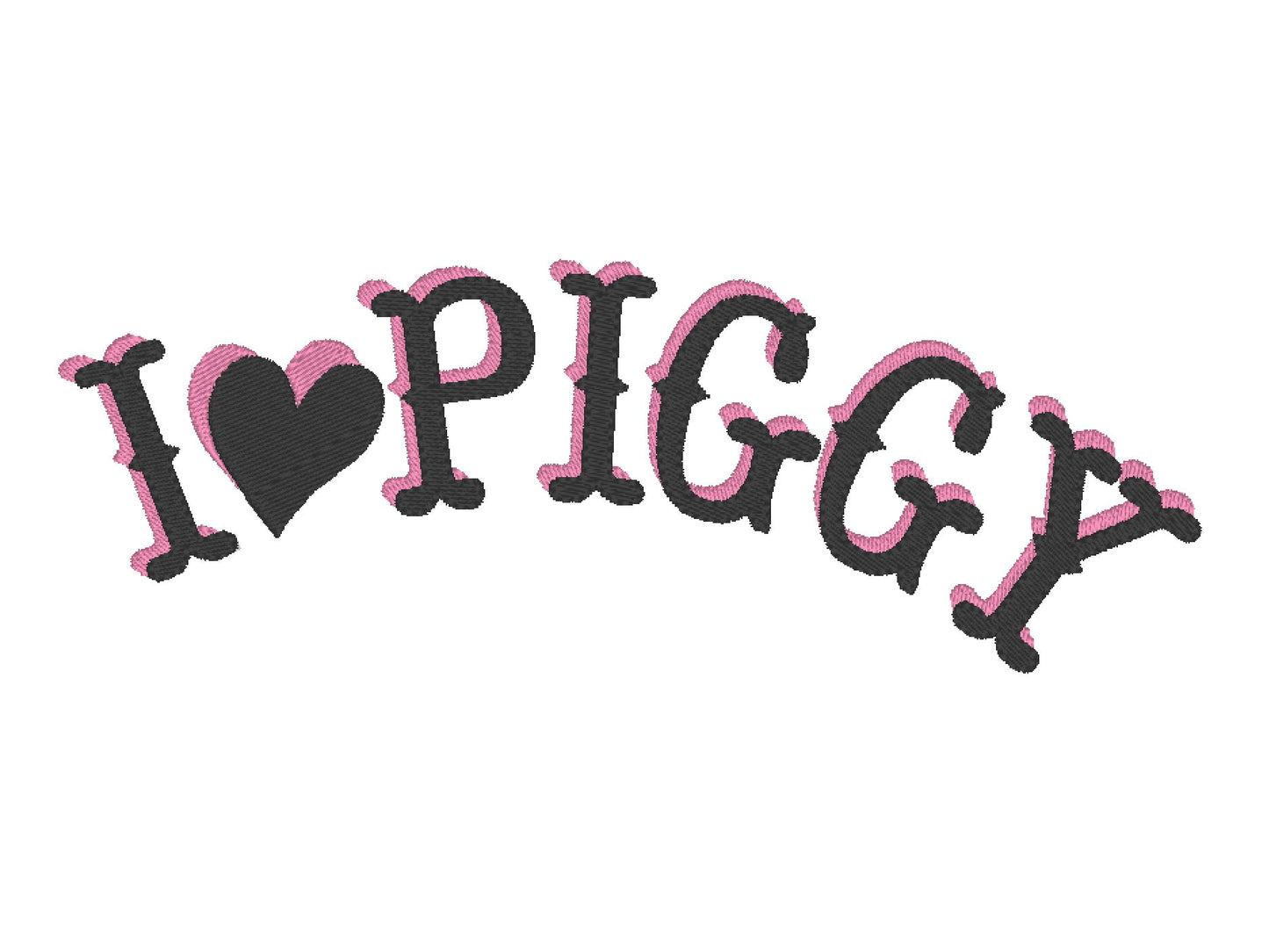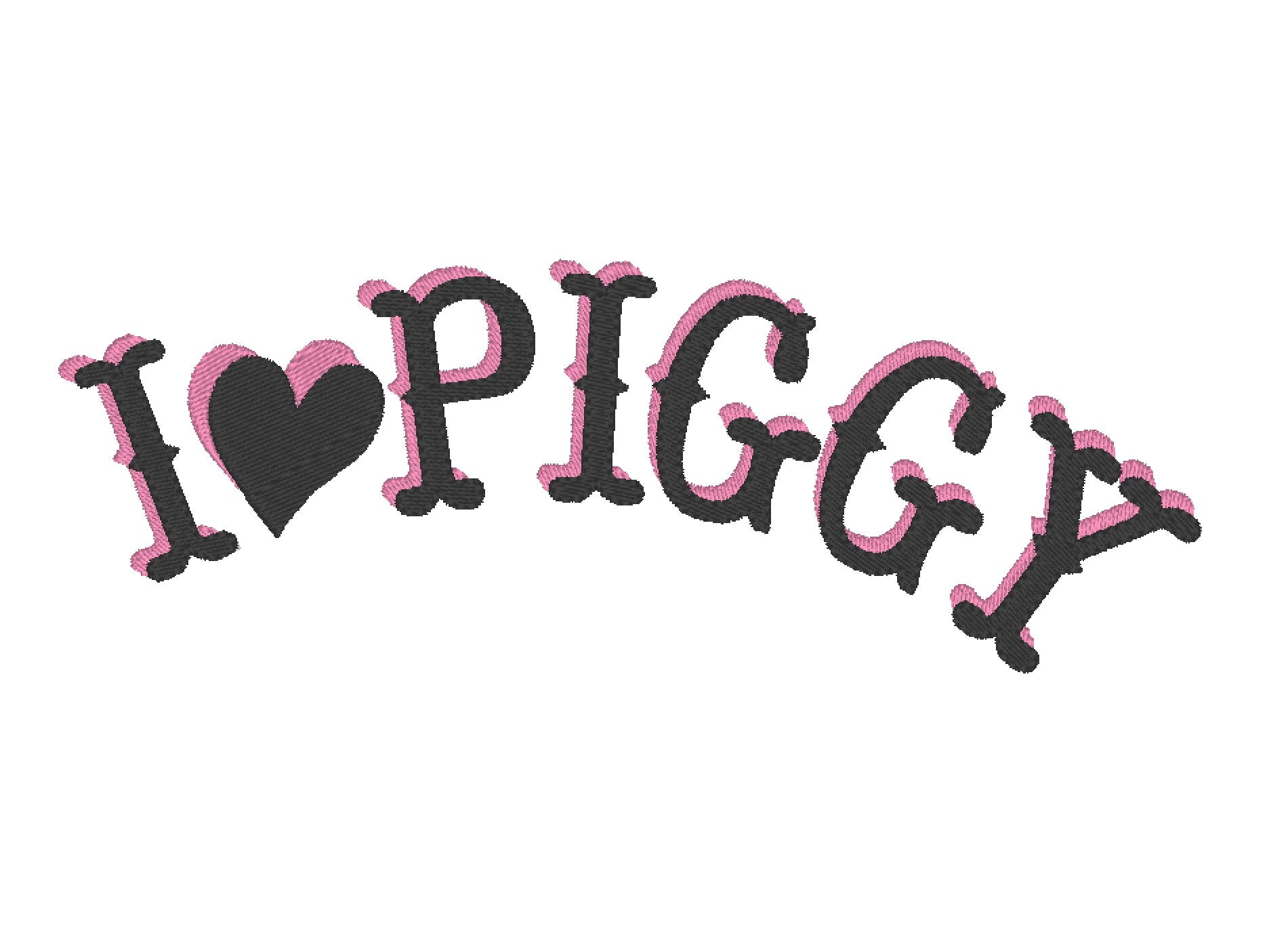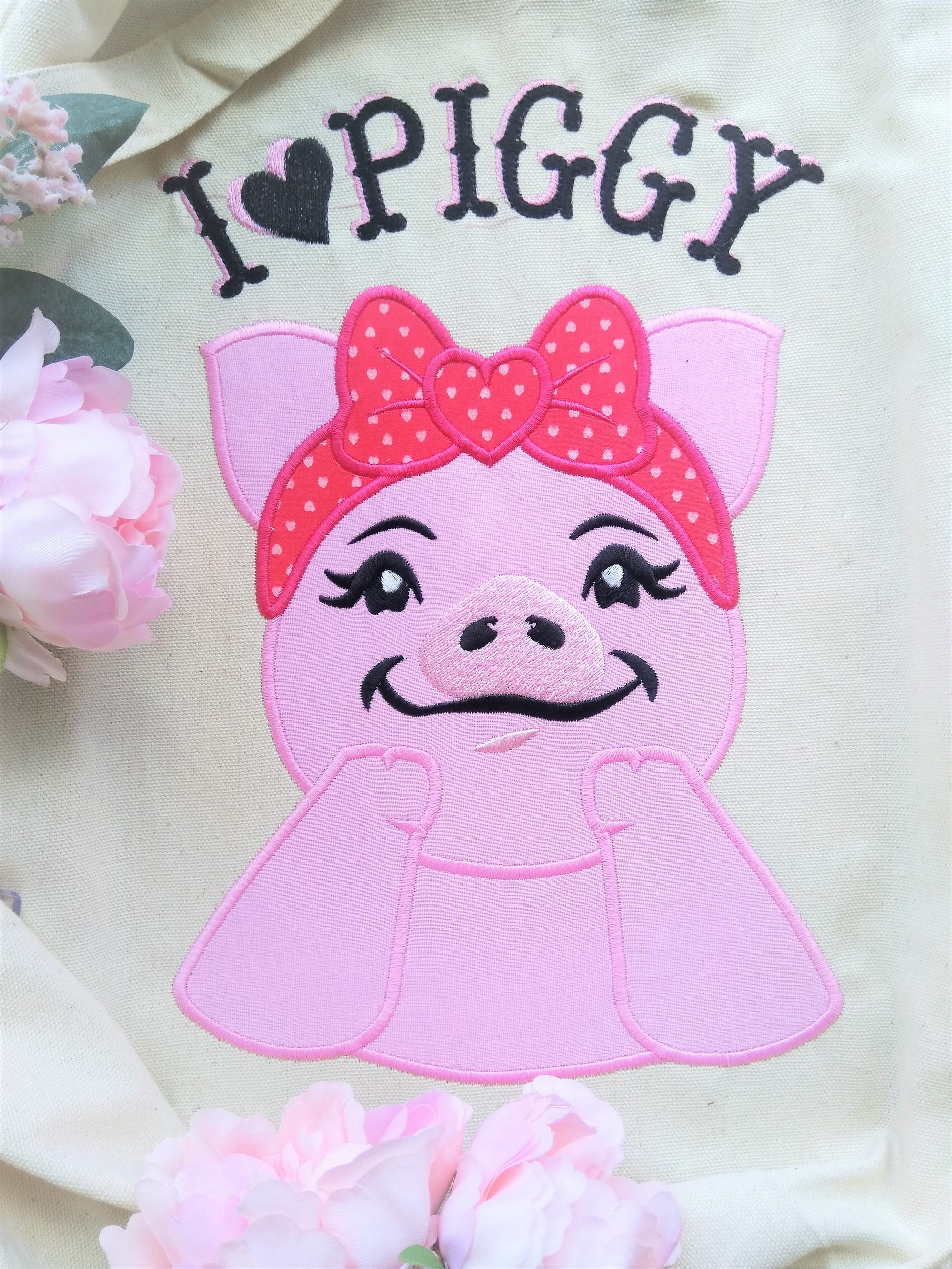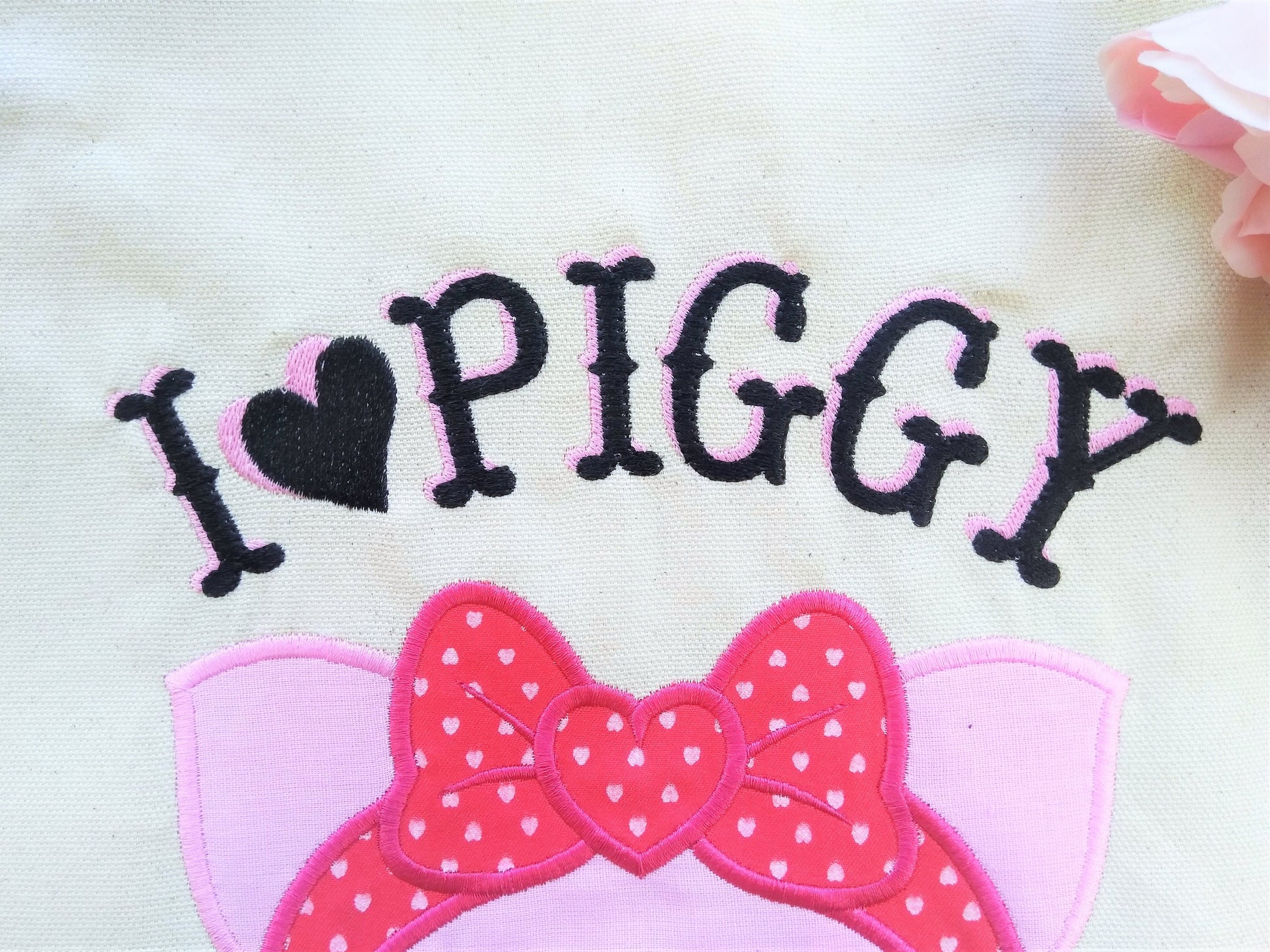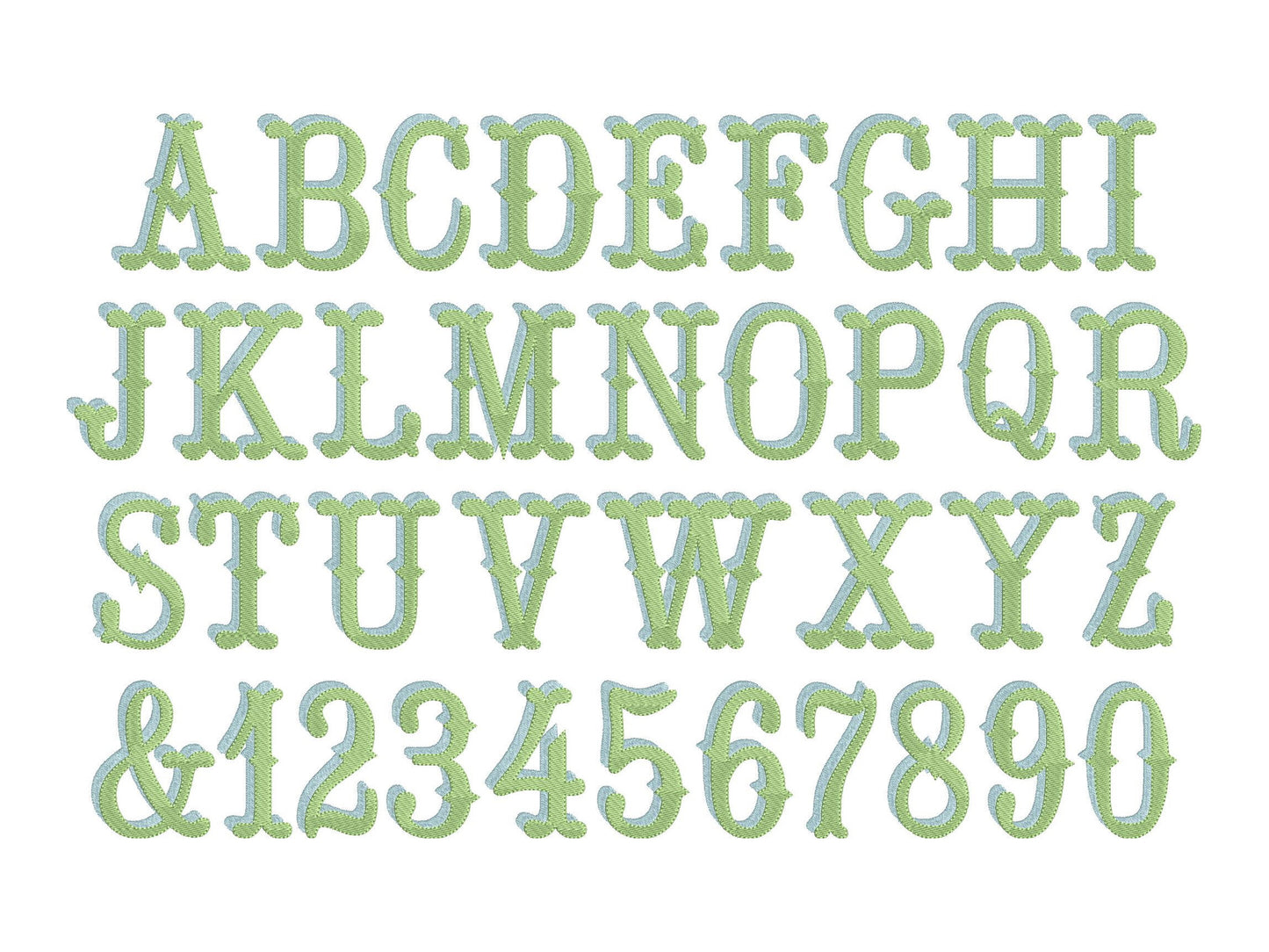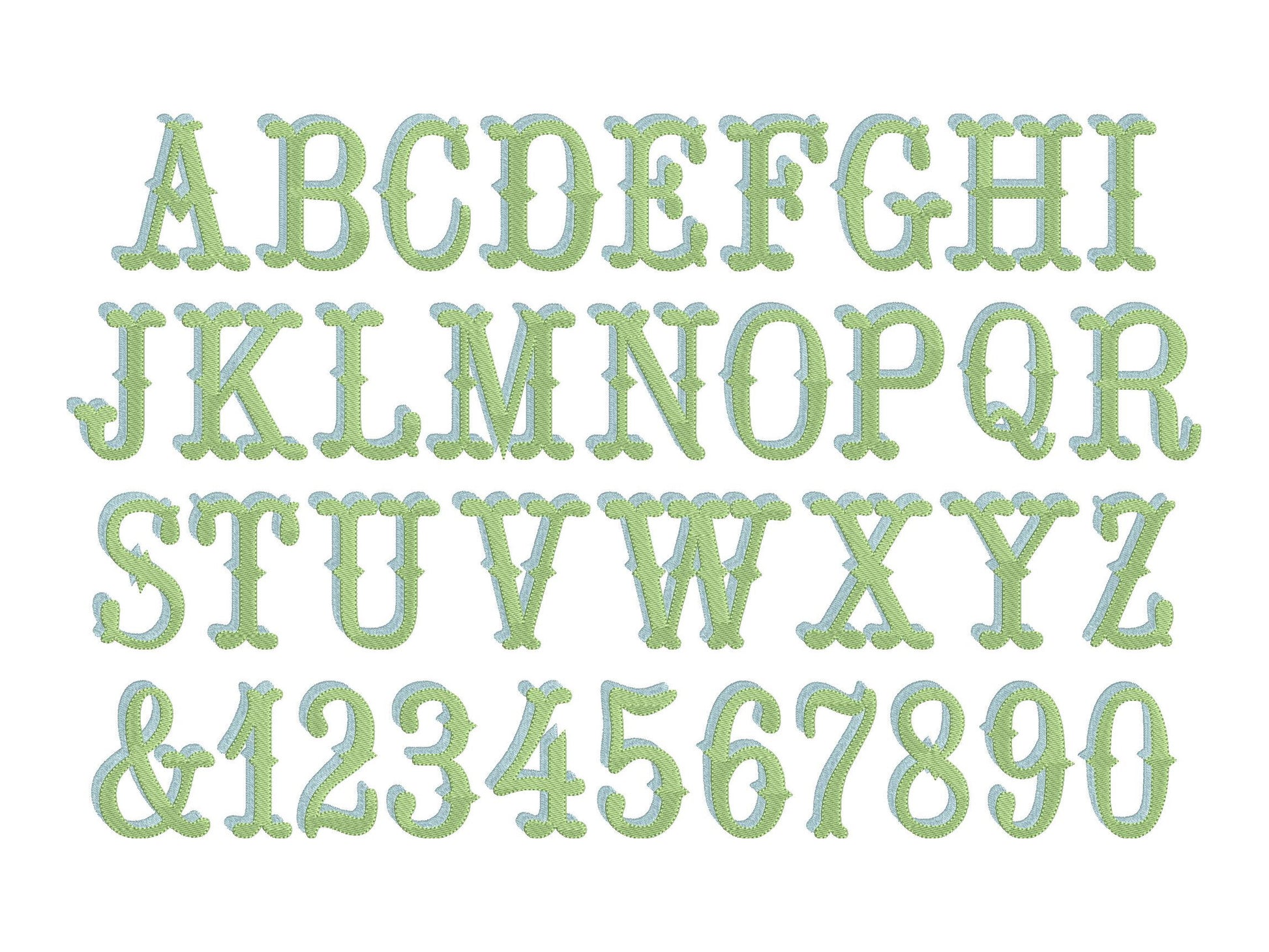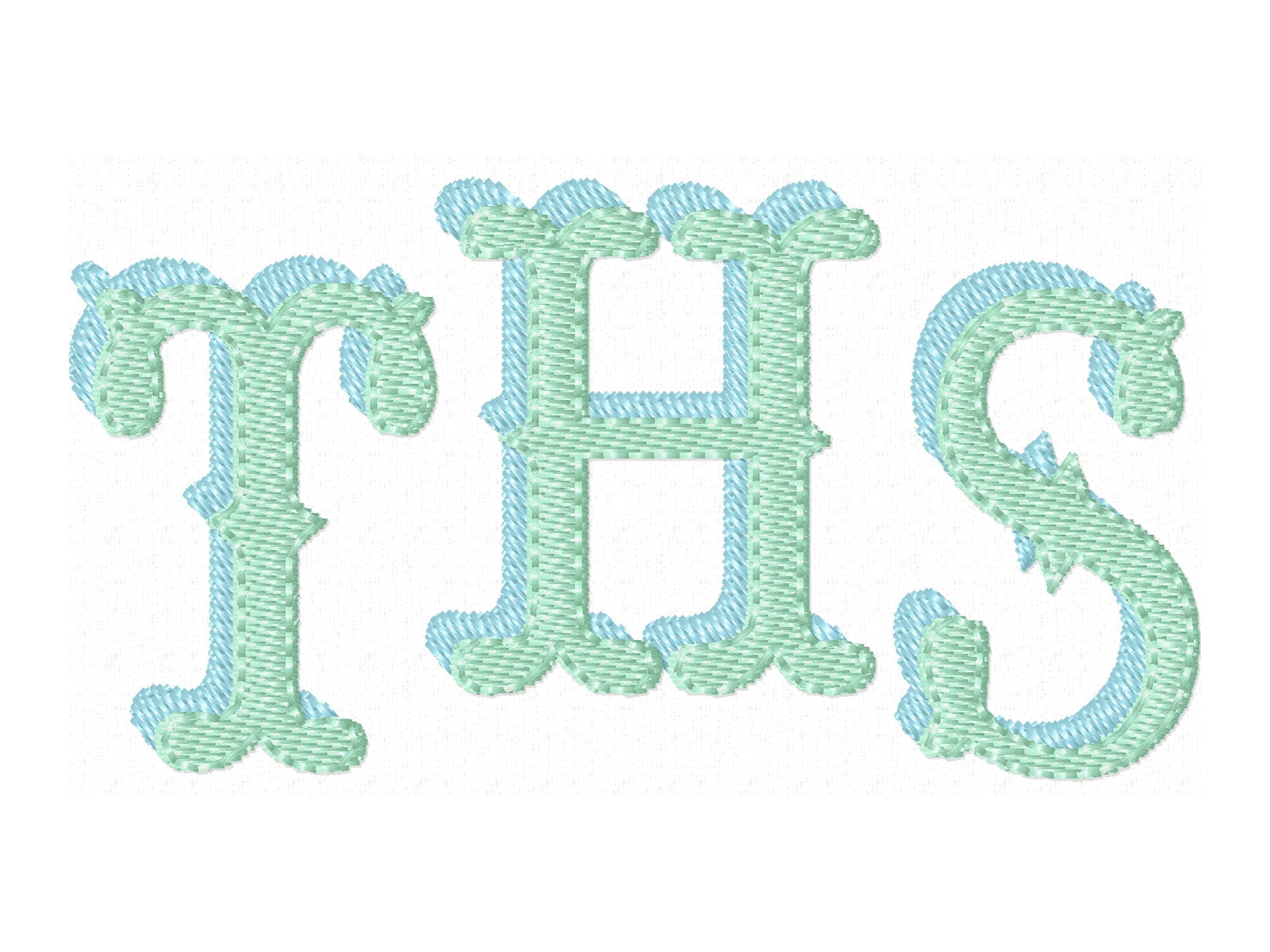
Fishtail Shadow Monogram Font
Included: Uppercase A-Z, Numbers 0-9, Punctuation
A western saloon-style monogram font with a shadow and fishtail ends. Great for cowboy and rodeo shirts, bags, pillows and monograms.
Uppercase letters A to Z, numbers 0 to 9, an ampersand and a comma. Six sizes: 1.5, 2, 2.5, 3, 3.5 and 4 inches. Every letter has a contrasting shadow.
• Western fishtail shadow monogram font
• Uppercase A to Z, numbers 0 to 9, ampersand
• 6 sizes, 1.5 to 4 in